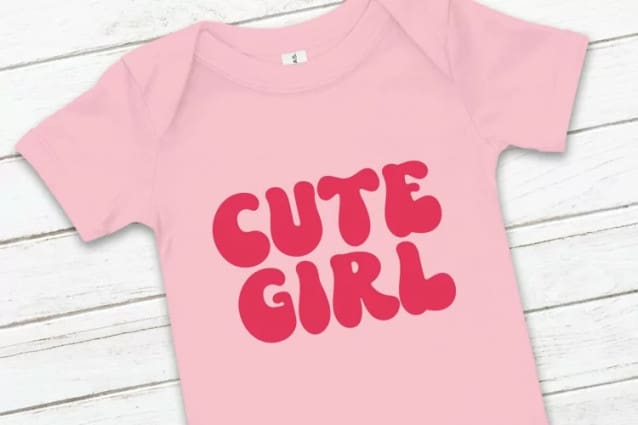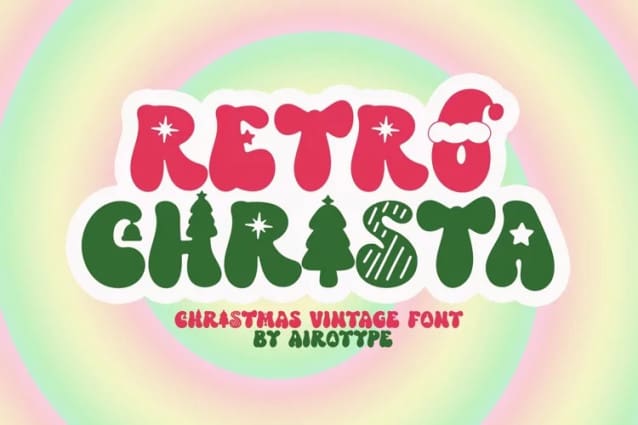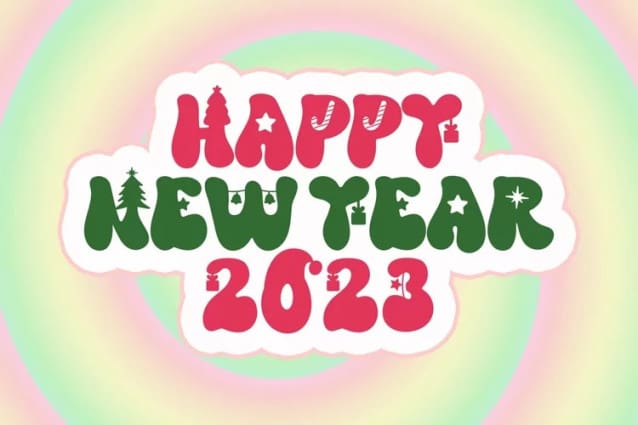
Retro Christa Font
Retro Christa Font is vintage font with Christmas accent. This font is special for Christmas Day. This font is all caps retro font with Christmas decorative accent in its lowercase.
RetroChrista is beautiful font for any Christmas projects design, such as Christmas poster, t-shirt, greeting card, and many more.